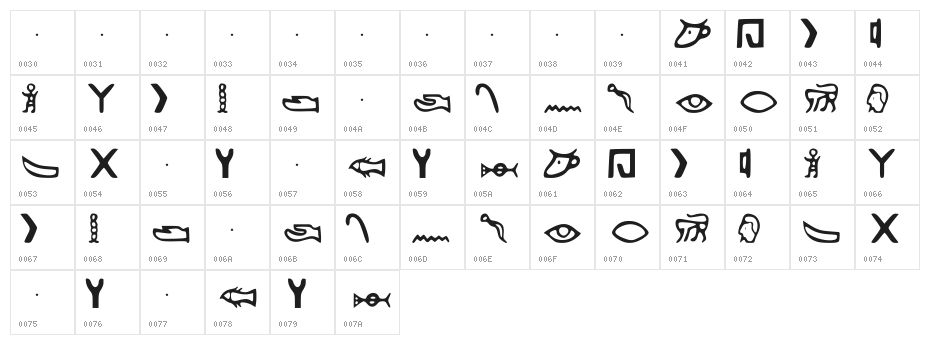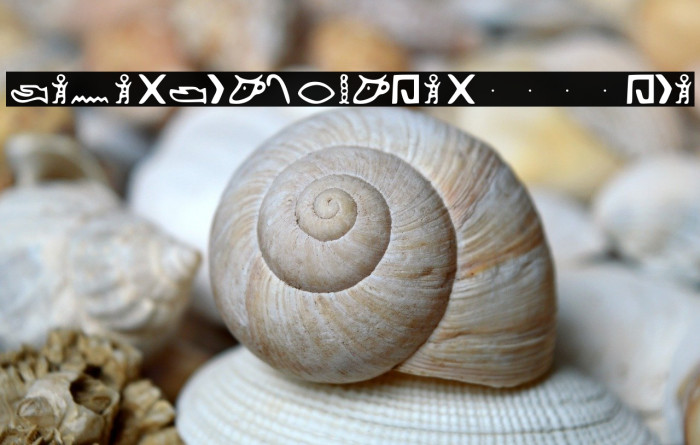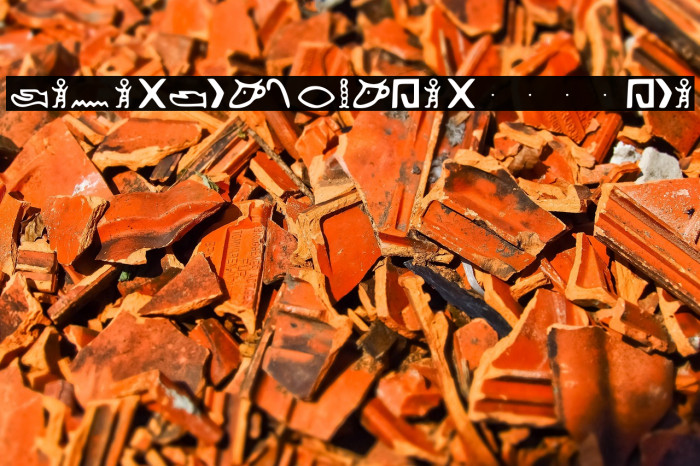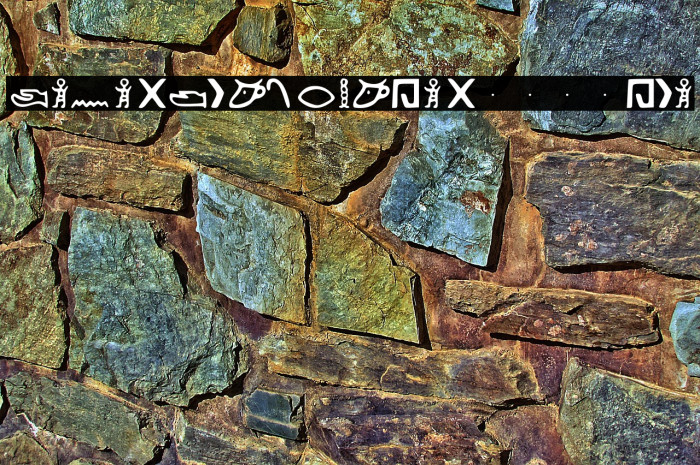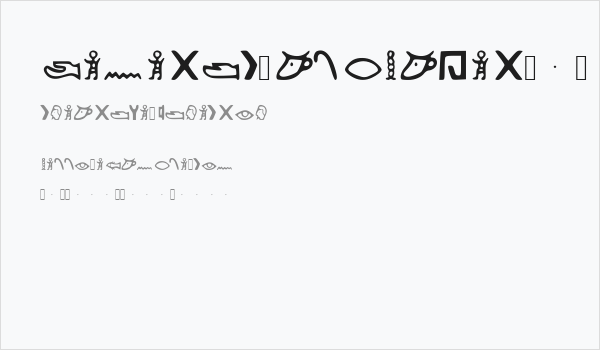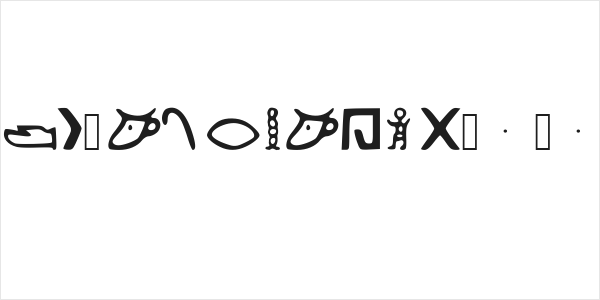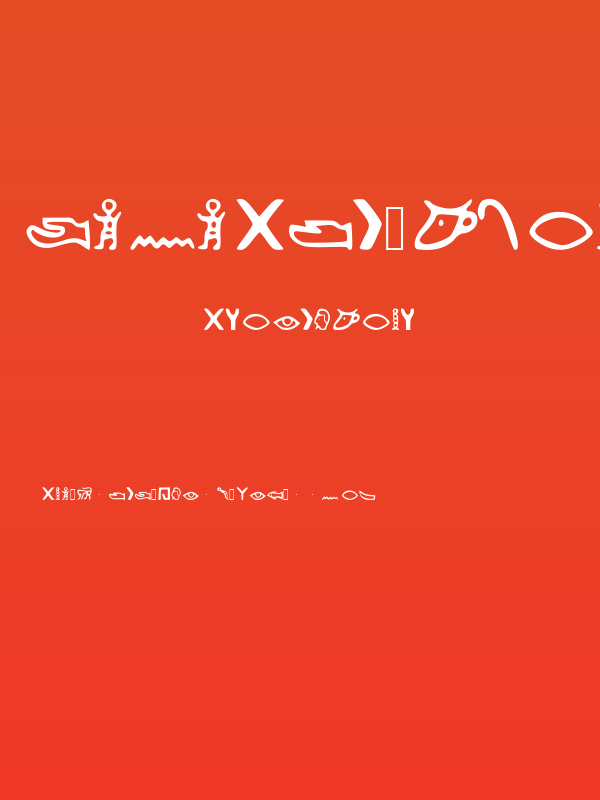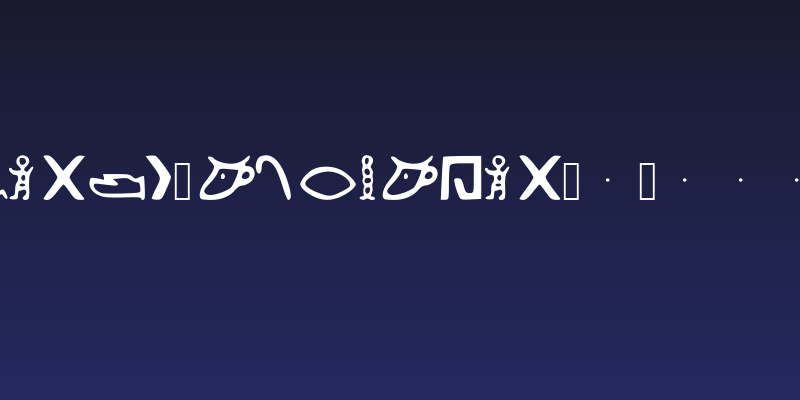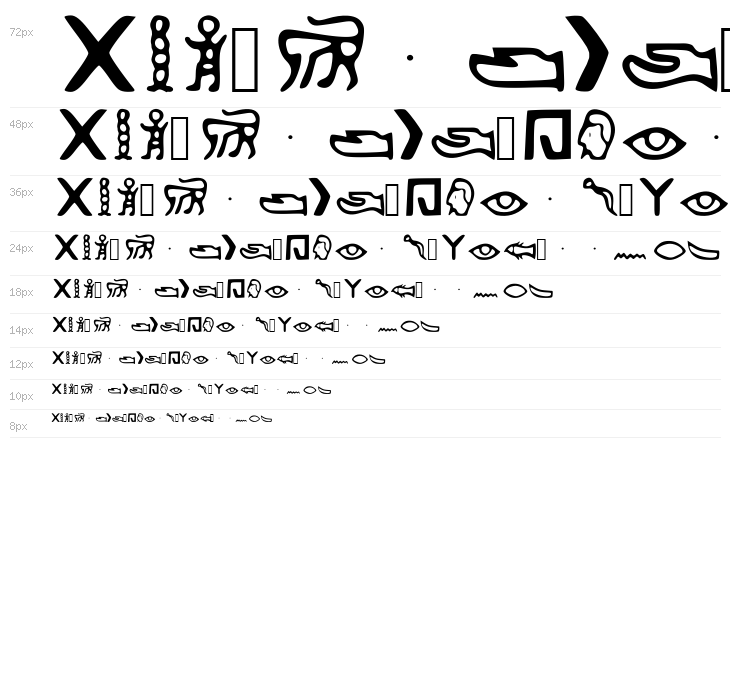
Kemetic_Alphabet_3.200_BCE Font
Kemetic_Alphabet_3.200_BCE Description
This font features ancient Egyptian hieroglyphic symbols with a hand-drawn, pictorial style. The characters are highly decorative, each representing a distinct object or concept, with varying stroke thickness and organic shapes. The symbols are visually complex and do not follow modern alphabetic conventions.
| Overall Style | Ancient, Decorative, Pictorial |
| Use Case | Themed headlines, educational graphics, historical recreations |
| Proposed Projects | Historical displays, educational materials, museum graphics, themed event posters, ancient civilization documentaries. |